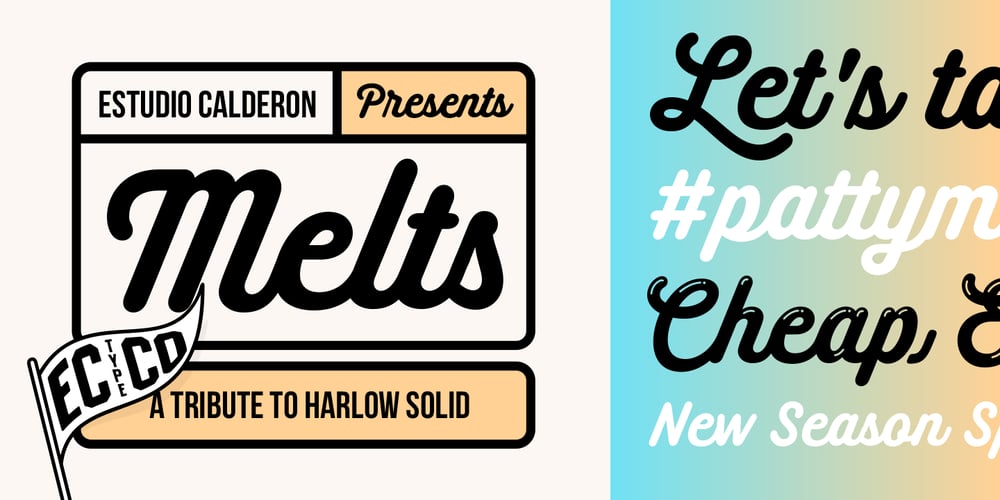
Melts Script Font Family was designed by Felipe Calderón and published by Estudio Calderon. Melts Script contains 4 styles and family package options. Melts Script from Estudio Calderón is a typeface based on Harlow Solid SB from Colin Brignall. It is made by round traces, with a simple design and a slightly “chubby” look. We wanted to propose a new version that works as an alternative of Harlow Solid, with connectors at the same heightand a complementary Font “Melts Sanscript” with sans serif capitals to be combined with lowercase scripts. Specimen Supporting 219 latin based languages, which are spoken in 212 countries. Psssss….It includes alternatives, swashes, ligatures and a version called Glint Glint, especially designed for those who want to highlight their works.